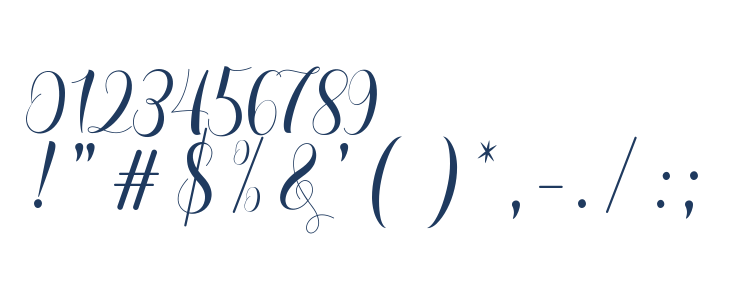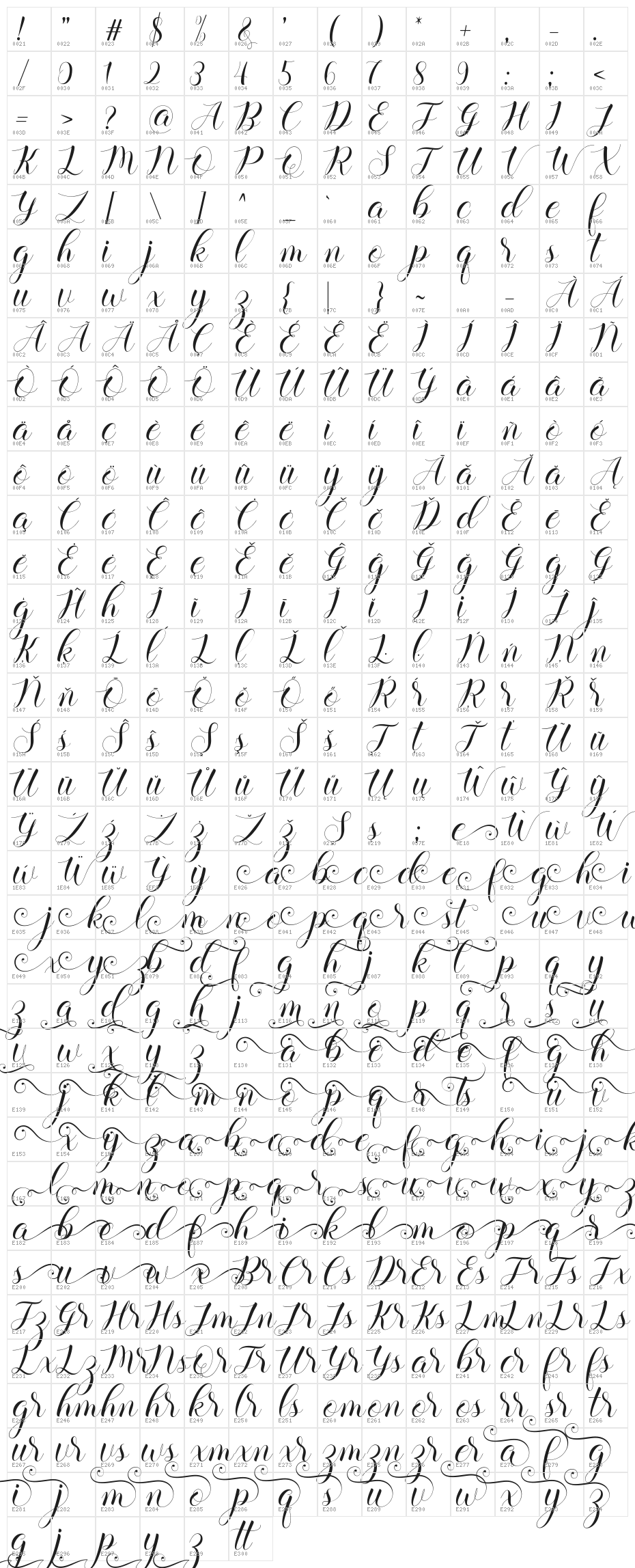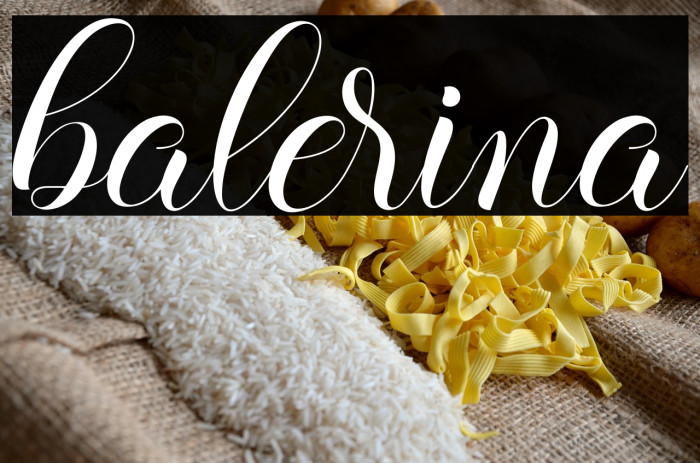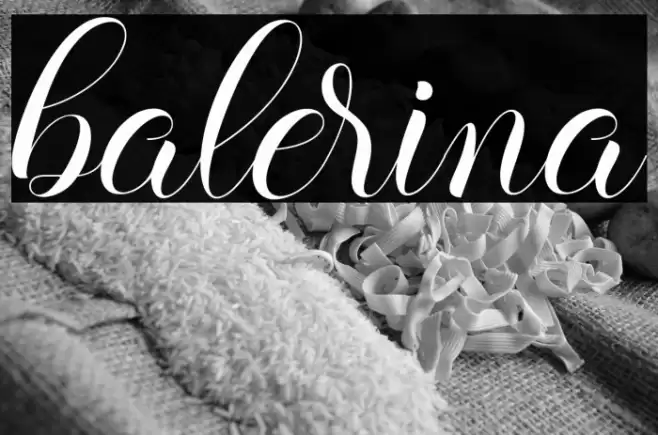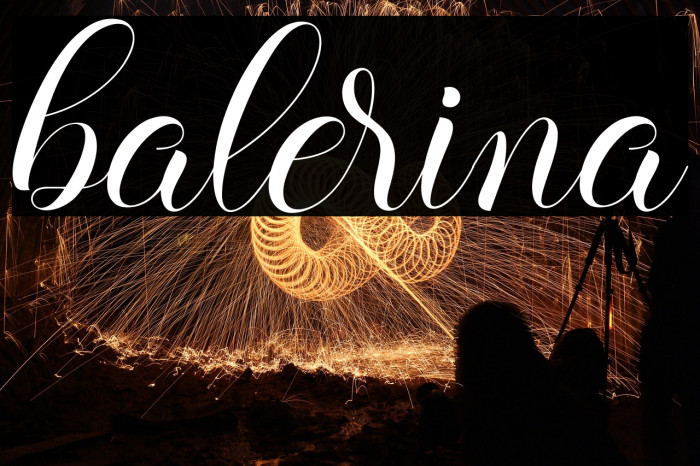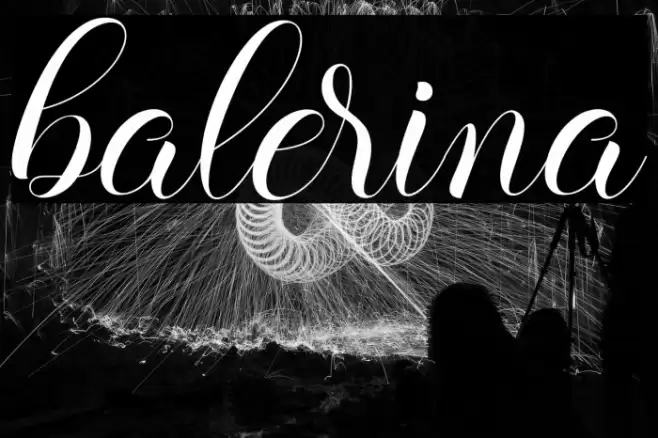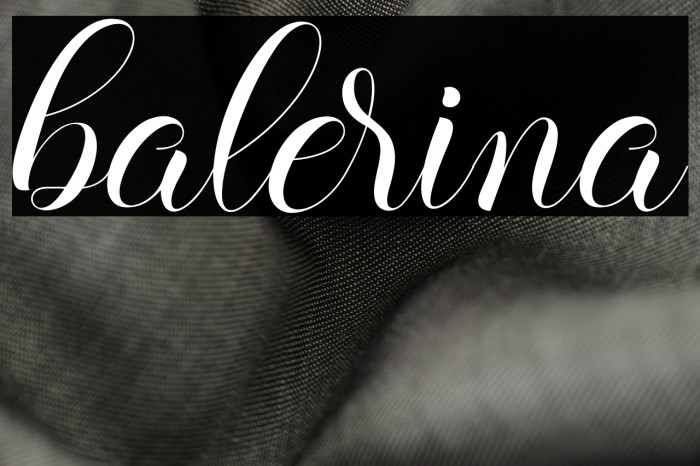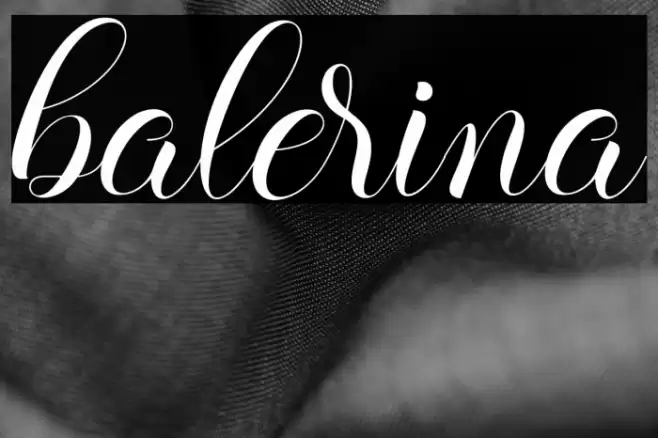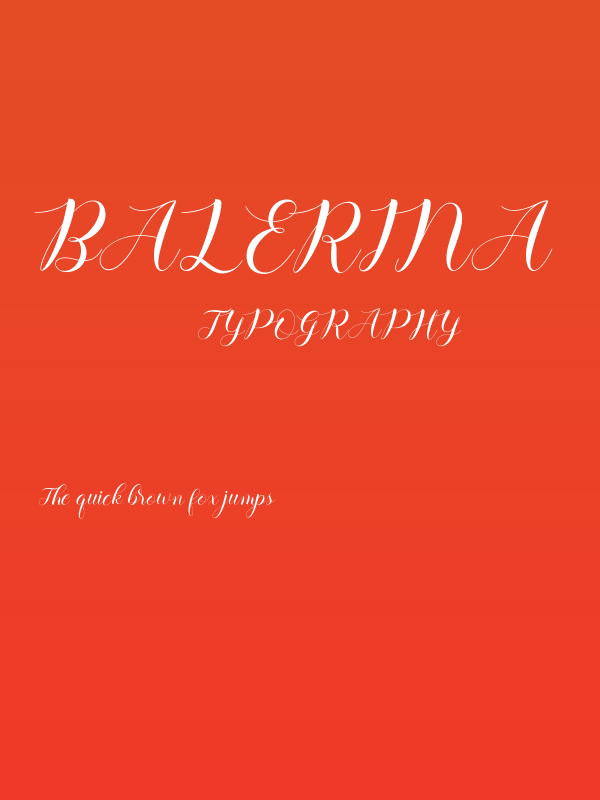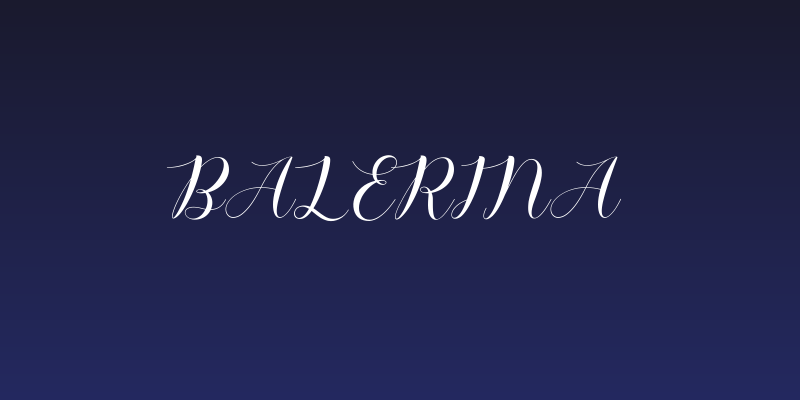
balerina Font
balerina Description
This elegant script font features graceful, flowing lines with a high degree of contrast between thick and thin strokes. The uppercase letters are adorned with intricate flourishes, giving them a sophisticated and ornate appearance. The lowercase letters maintain a consistent style, with smooth curves and delicate connections between characters. The numerals are equally stylish, with a distinctive flair that complements the overall aesthetic. Special characters are designed with the same attention to detail, ensuring a cohesive look across all glyphs.